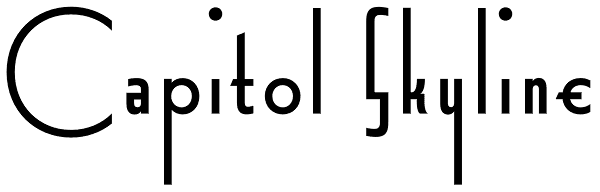
Capitol Skyline
DF Capitol features two faces, DF Capitol Skyline and DF Capitol Capitals (a multi-weight all-caps compliment) that epitomise Streamline Moderne. Strong geometry and large, open counters with heavily condensed verticals and a succession of...
Capitol Skyline
Capitol Skyline Underline